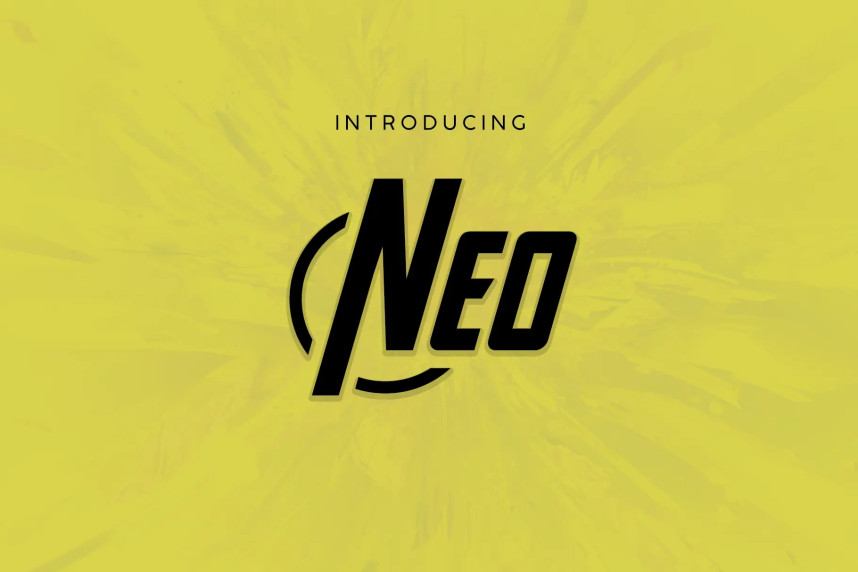
Neo Pro Font
Neo Pro Font is a modern techno-style display font created by FG Studios, designed with a futuristic and digital-inspired aesthetic. It features clean, geometric letterforms with a sharp, contemporary feel, making it suitable for projects that aim to convey innovation and technology. The font includes uppercase and lowercase characters, numbers, and punctuation, along with multilingual support and webfont formats for versatile use across both print and digital media.
With its sleek and minimal structure, Neo Pro works especially well for branding, logos, posters, gaming graphics, and UI or sci-fi themed designs. It also offers a regular and alternate version, giving designers additional flexibility to experiment with different visual styles while maintaining a cohesive modern look.